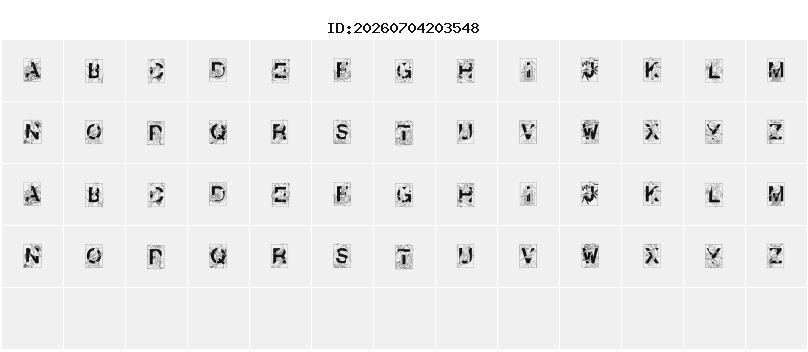
• Font Name: Dover Birds Filled
• Designer: Toto
• Manufacturer: Toto
• Description: Based on the Birds Alphabet Coloring Book by Ruth Soffer published by Dover Publications.